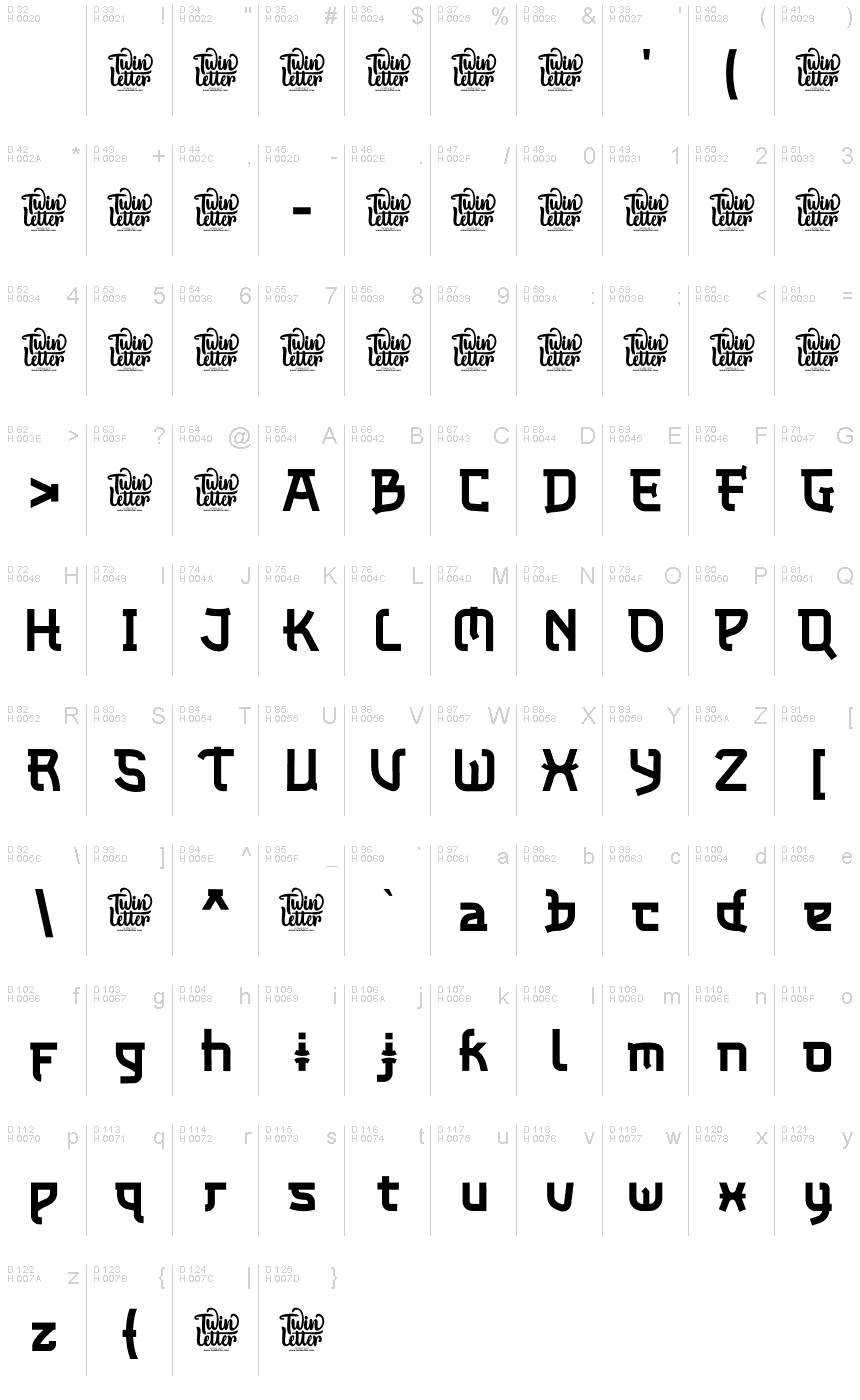
Mixiwa, the exquisite foreign font designed by twinletter, brings a touch of Japanese elegance to your projects. Its delicate strokes and intricate details are perfect for adding a unique flair to your branding materials, packaging designs, or even wedding invitations. This semi-bold font style is versatile for both print and digital media and its narrow width makes it easy to use in various layouts. Mixiwa's Japanese-style design provides a modern twist on traditional fonts, making it an ideal choice for businesses looking to stand out with their marketing efforts. Elevate your designs with Mixiwa and impress your audience with its captivating beauty.